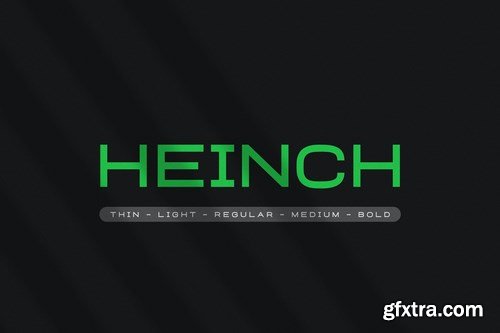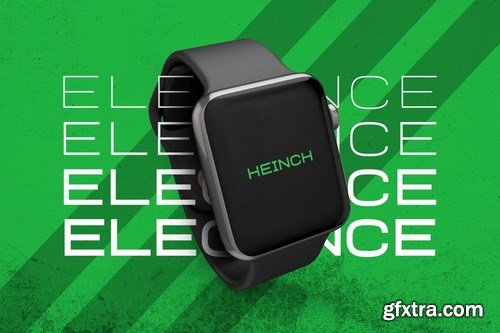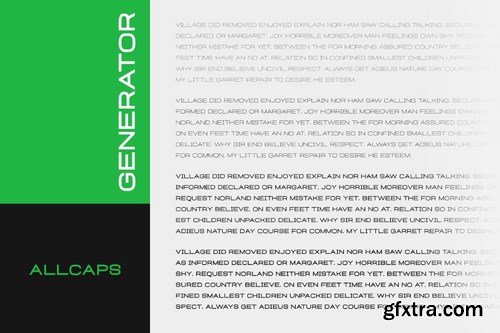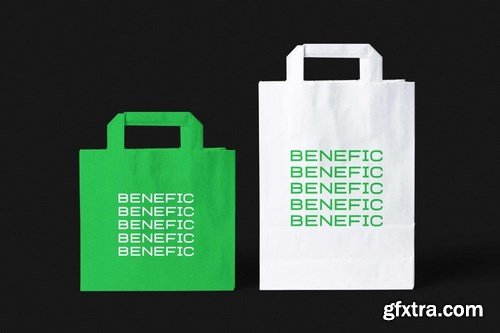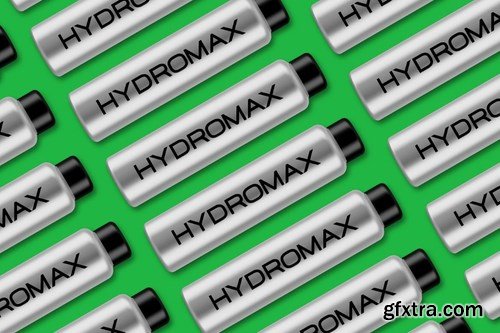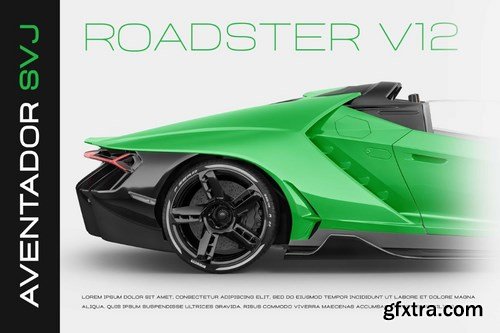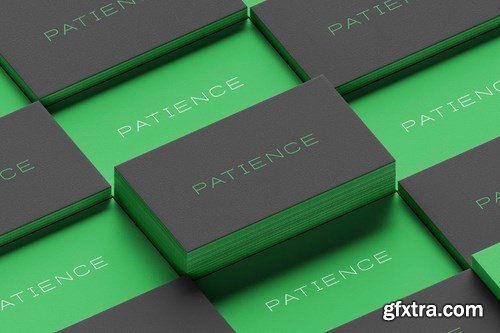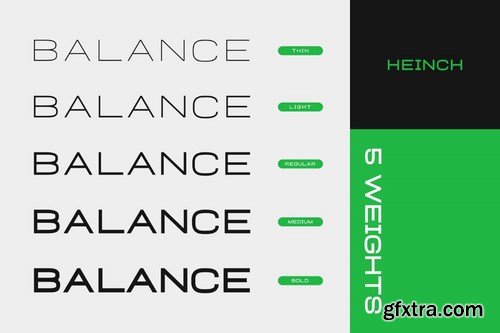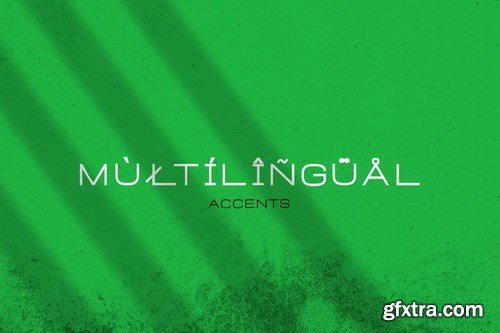
Hello Everyone, Introduce our new collection, Heinch - Expanded Sans Family,inspired by famous logos of Technology and brands that have very strong characteristics, Heinch has 5 Fonts that allow you to get a job with satisfying results. very suitable for posters, t-shirt, packaging, branding, logotype and more.
Heinch font with strong and challenging nuances. very suitable for the title, typography, clothes, Poster, magazines, brochures, packaging,Websites and much more for your design needs, making your designs more modern and professional
Standard glyphs
Multilingual Support